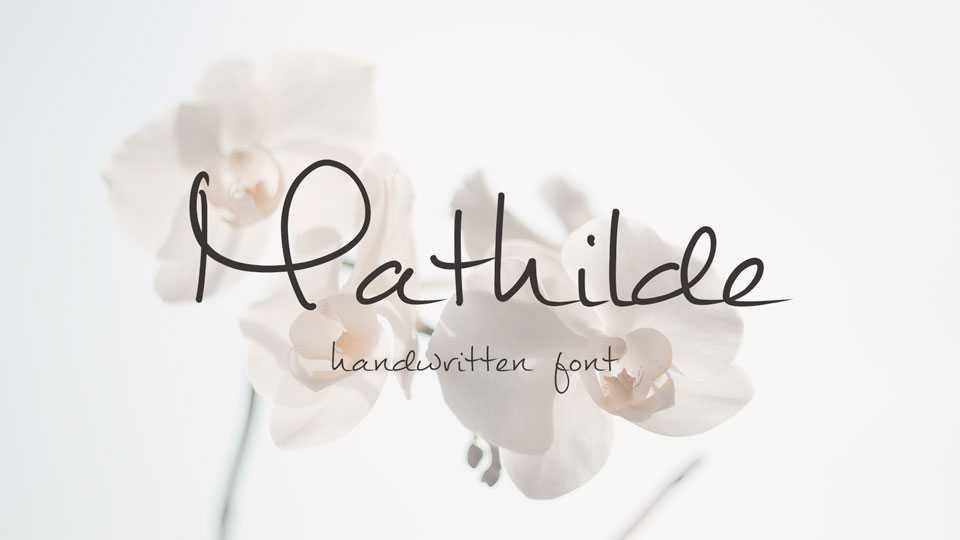
Download Mathilde font, a lovely handwritten cursive typeface. Great for personal branding, watermarks, social media, magazines, printed quotes, letters and cards and other beautiful designs.
Designer: Lee Batchelor